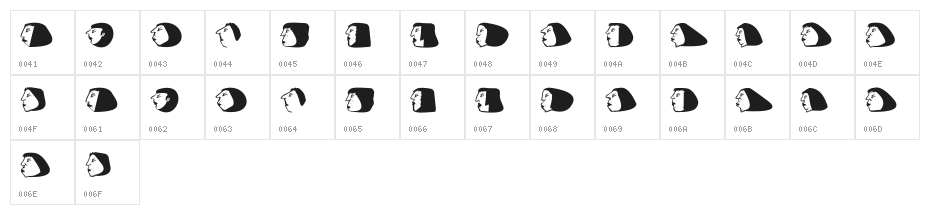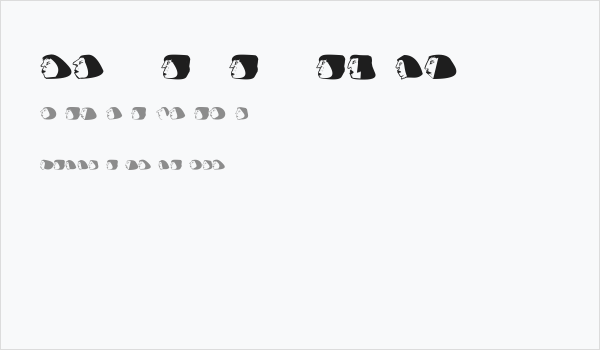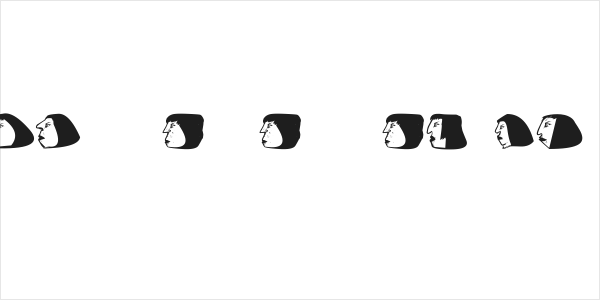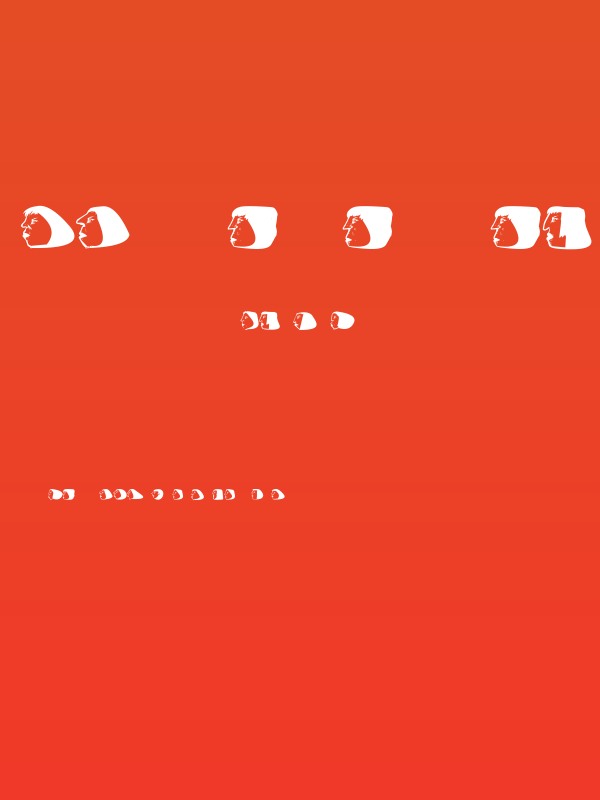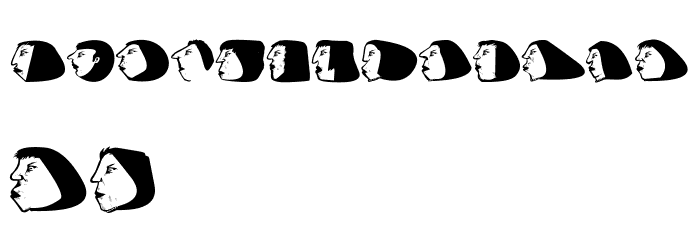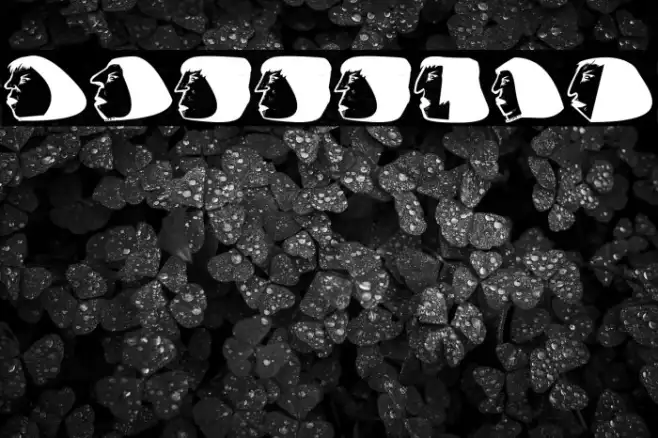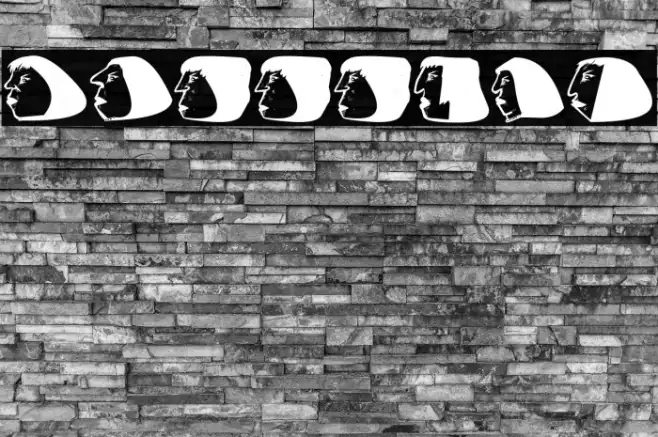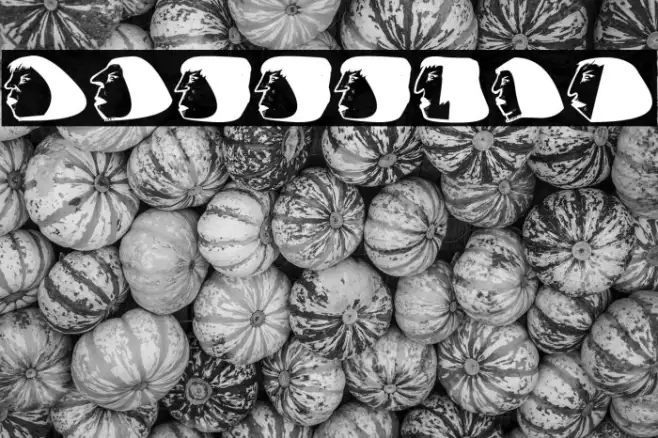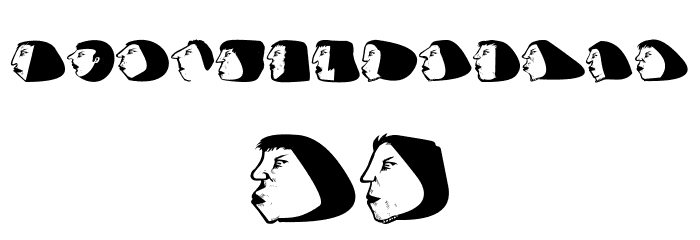
Mistresses Regular Font
Mistresses Regular Description
This font is a highly creative and artistic representation, featuring stylized human profiles in place of traditional letterforms. Each character is uniquely crafted to resemble a face in profile, offering a whimsical and avant-garde approach to typography. The design is bold and visually striking, making it more of an artistic statement than a conventional typeface. The characters are consistent in style, with a strong emphasis on facial features and expressions, creating a cohesive yet unconventional alphabet.
| Use Case | Logos, Artistic displays, Posters |
| Proposed Projects | Ideal for artistic projects, creative posters, unique branding, and any design work that seeks to make a bold visual statement. |